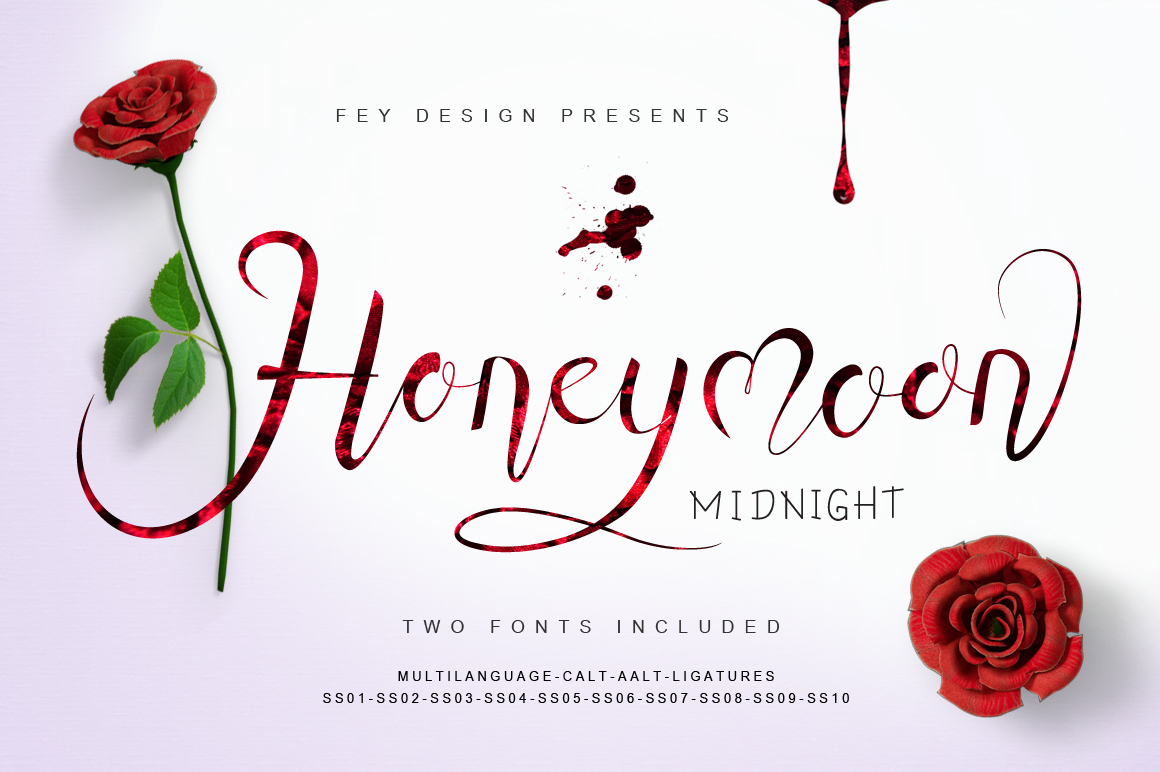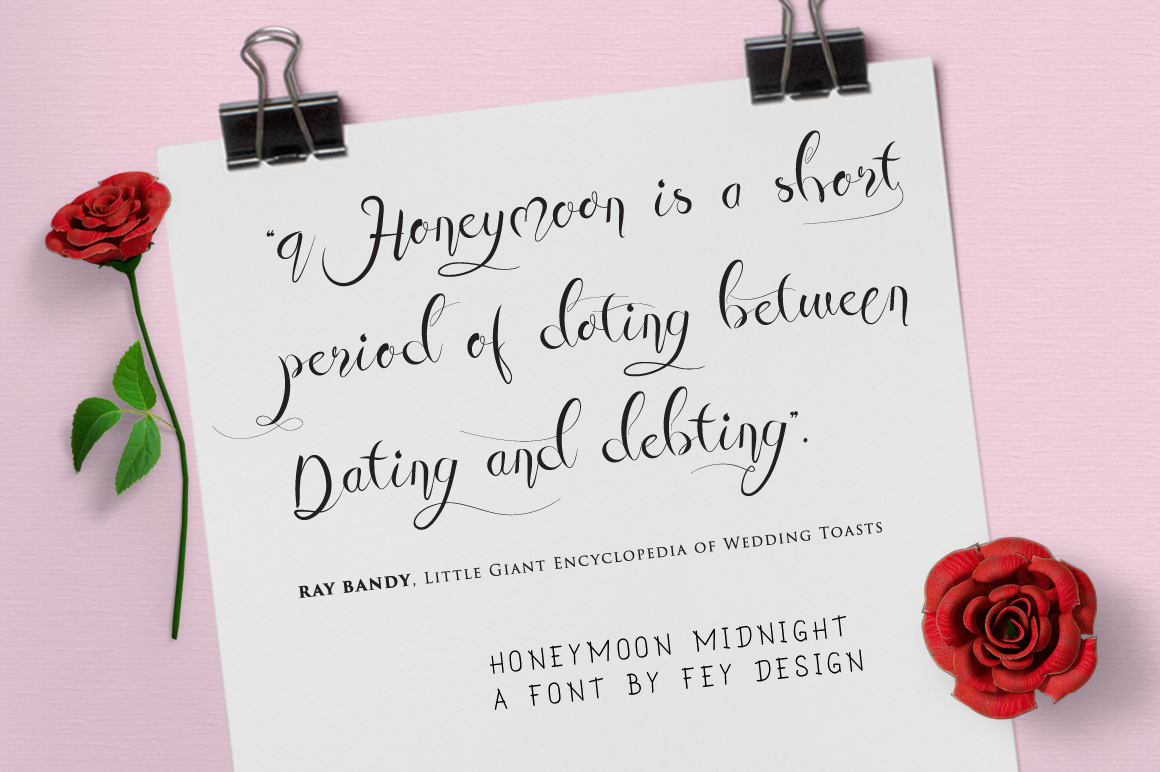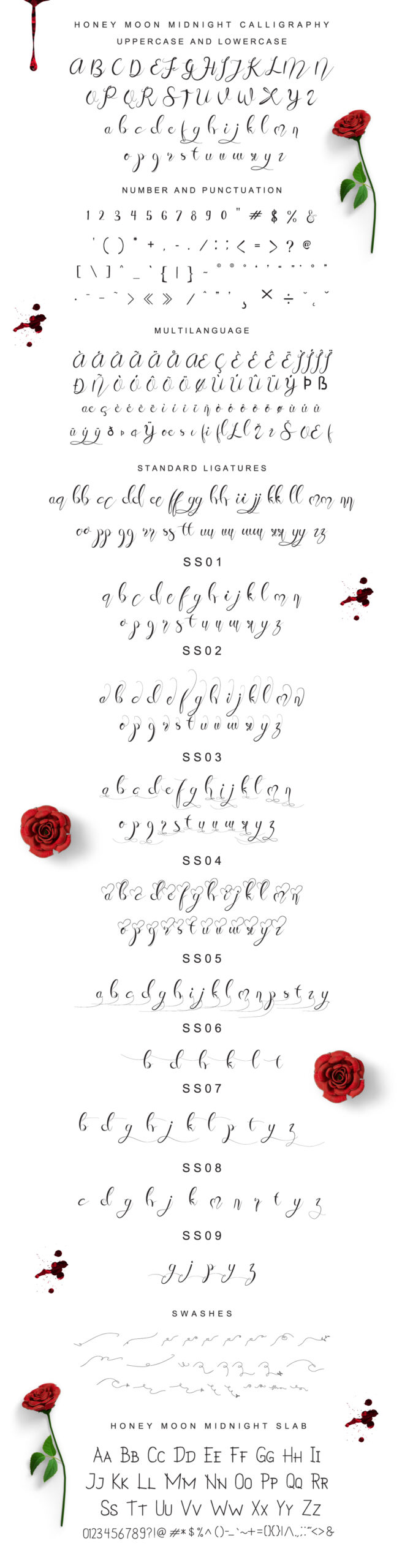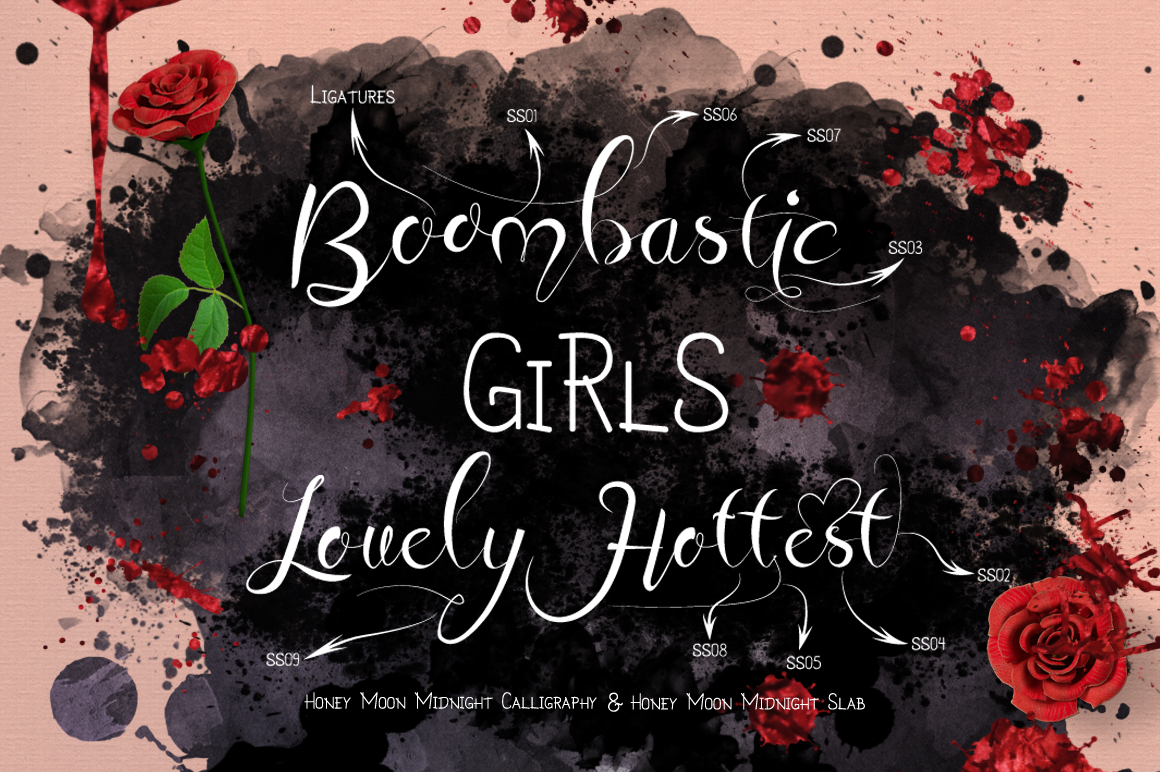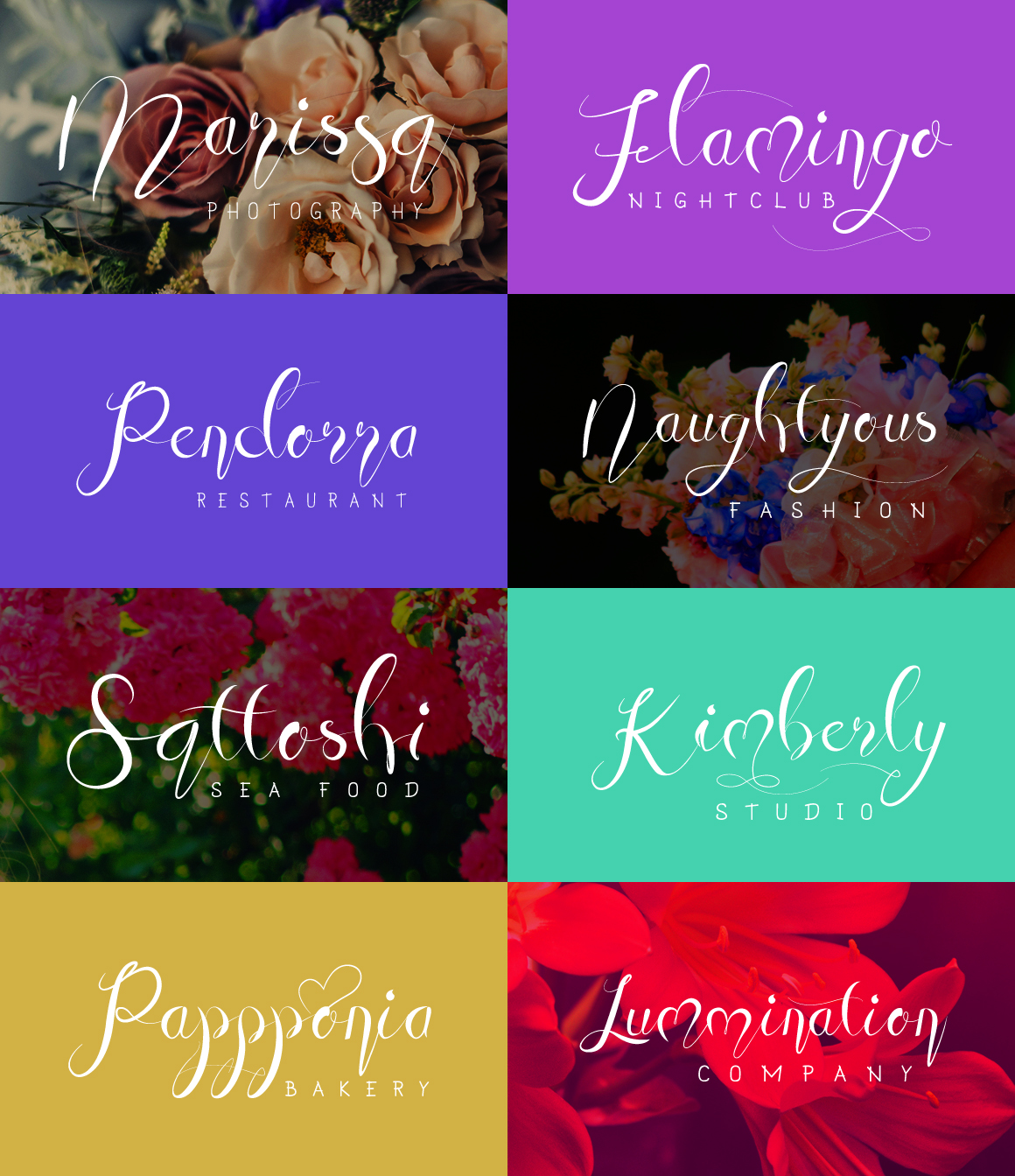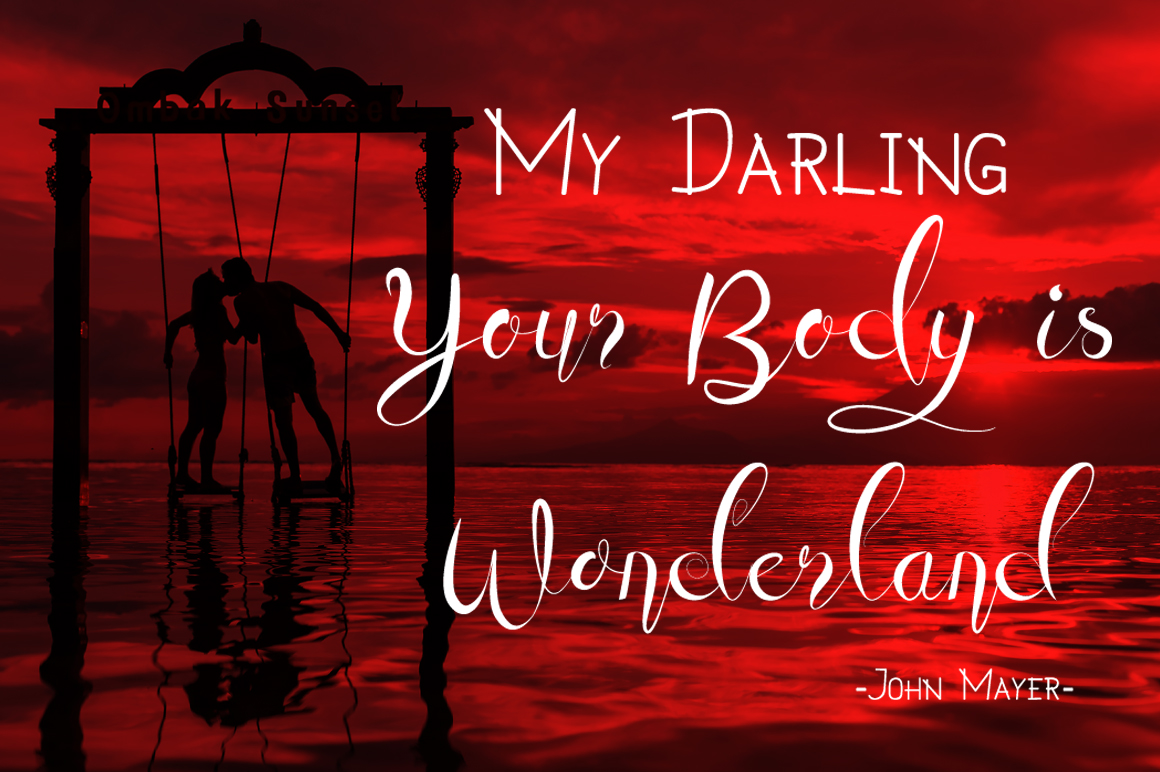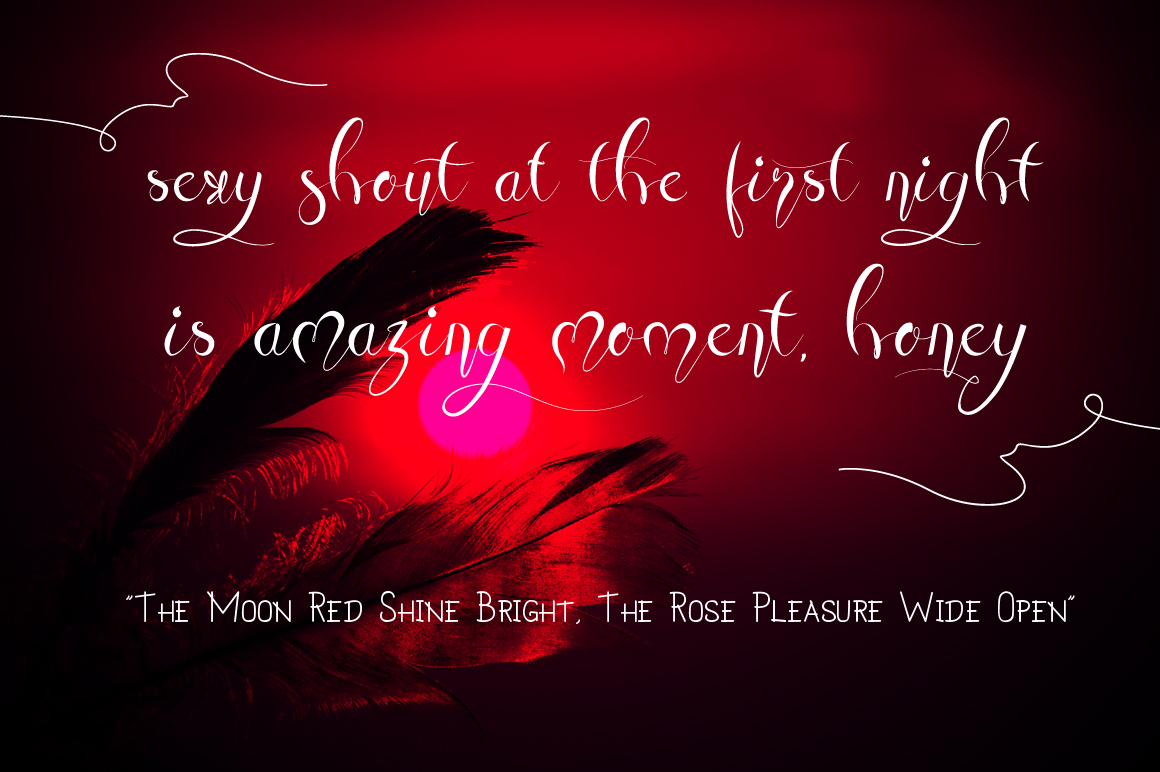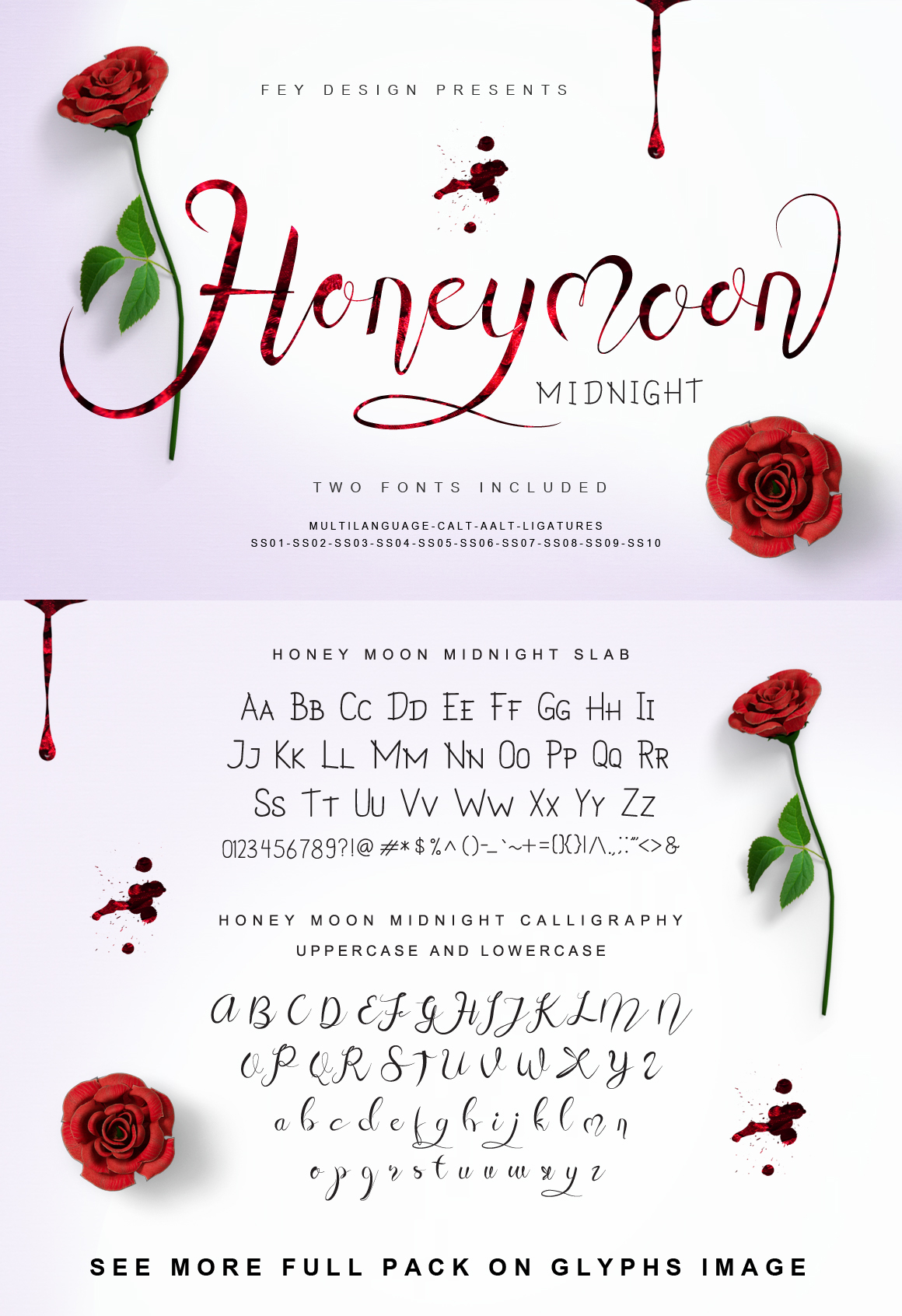
Honey Moon Midnight Font
About Honey Moon Midnight Font
Honey Moon Midnight is a gorgeous handlettered script font, with a duo font style. This font is suitable for a wide range of print and digital projects, with tons of alternates and style options!